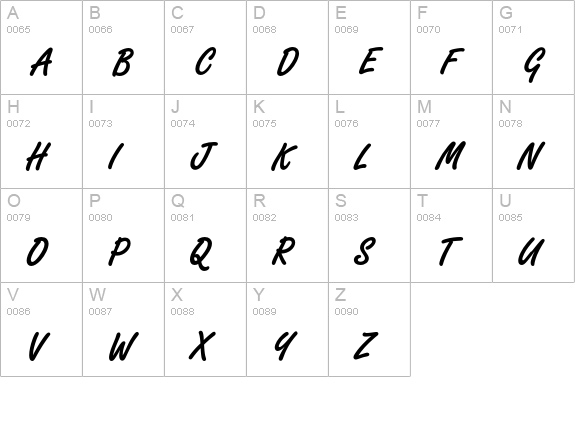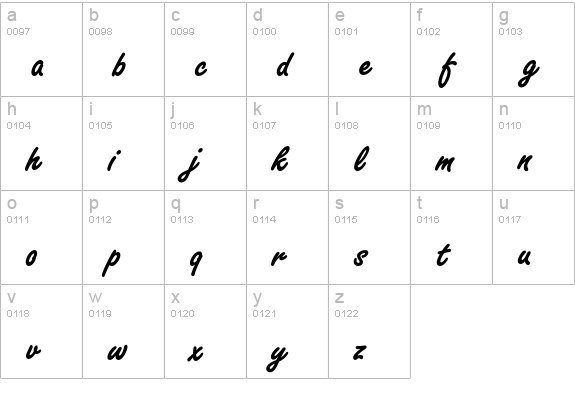
Freestyle Script D Bold is a strong, high-contrast variant in the Freestyle typeface family \xE2\x80\x94 well suited to headlines, attention-grabbing titles, and strong calls-to-action.
Freestyle Script D Bold is a stylish and contemporary font that exudes elegance and sophistication. Its bold and flowing script captures attention and adds a touch of flair to any design project. The smooth curves and unique letterforms of Freestyle Script D Bold make it perfect for creating eye-catching signage, invitations, and logos. This beautiful font is not only visually appealing but also versatile, suitable for both formal and informal applications. Whether you're looking to add a touch of elegance to your wedding invitations or create a modern logo for your business, Freestyle Script D Bold is sure to make a lasting impression. Best of all, Freestyle Script D Bold is available for free download at FontsMarket.com. So why wait? Enhance your designs with this stunning font today!